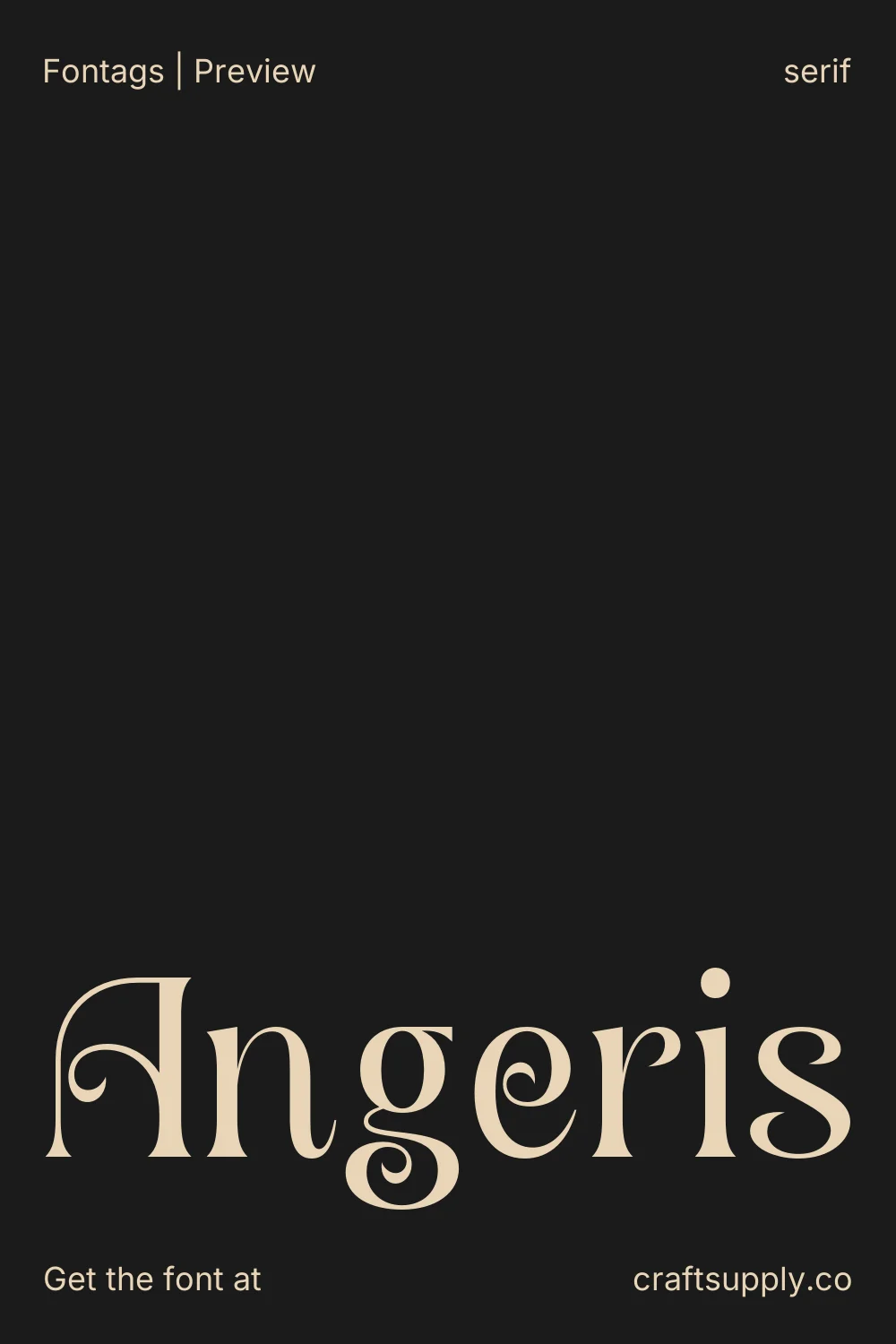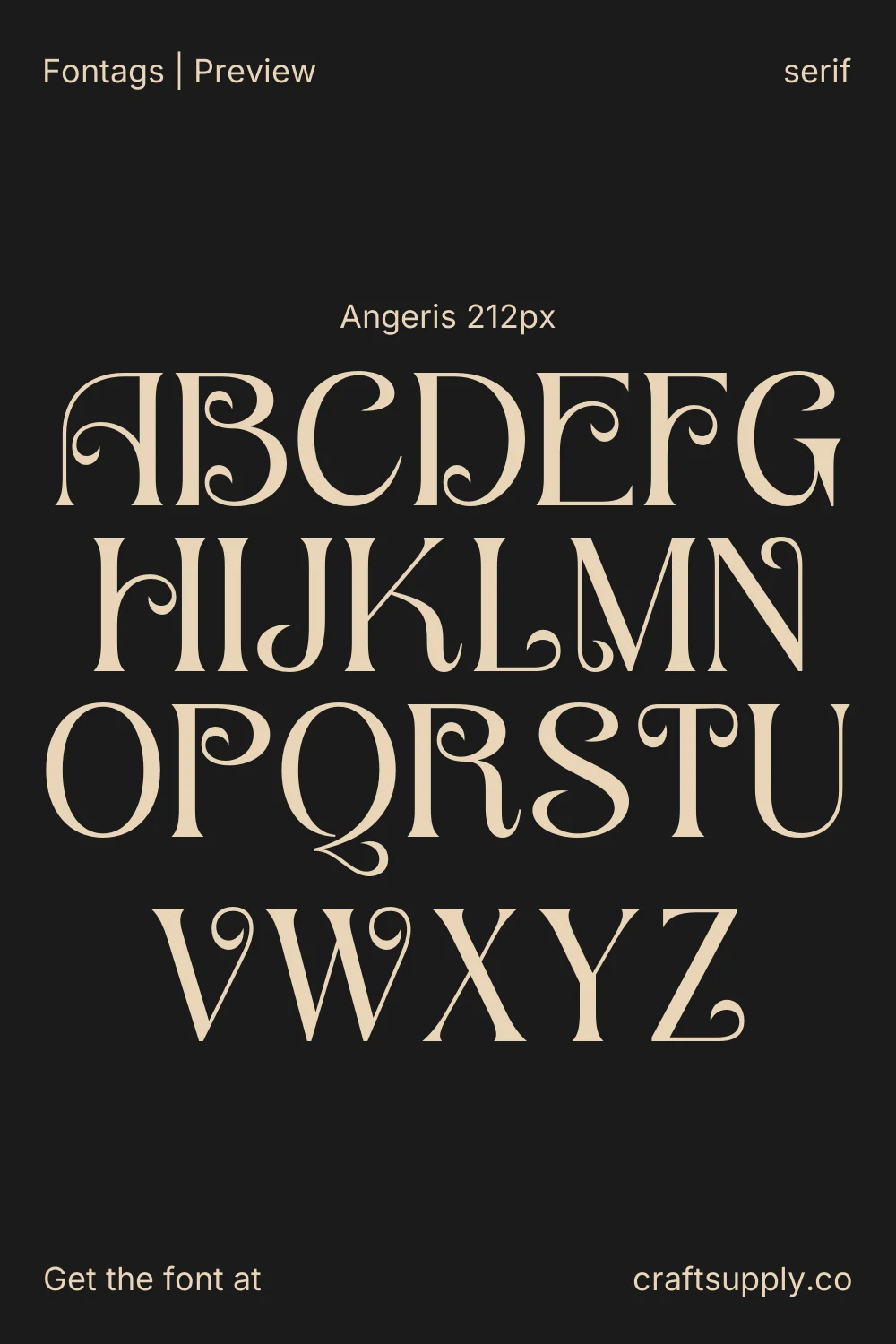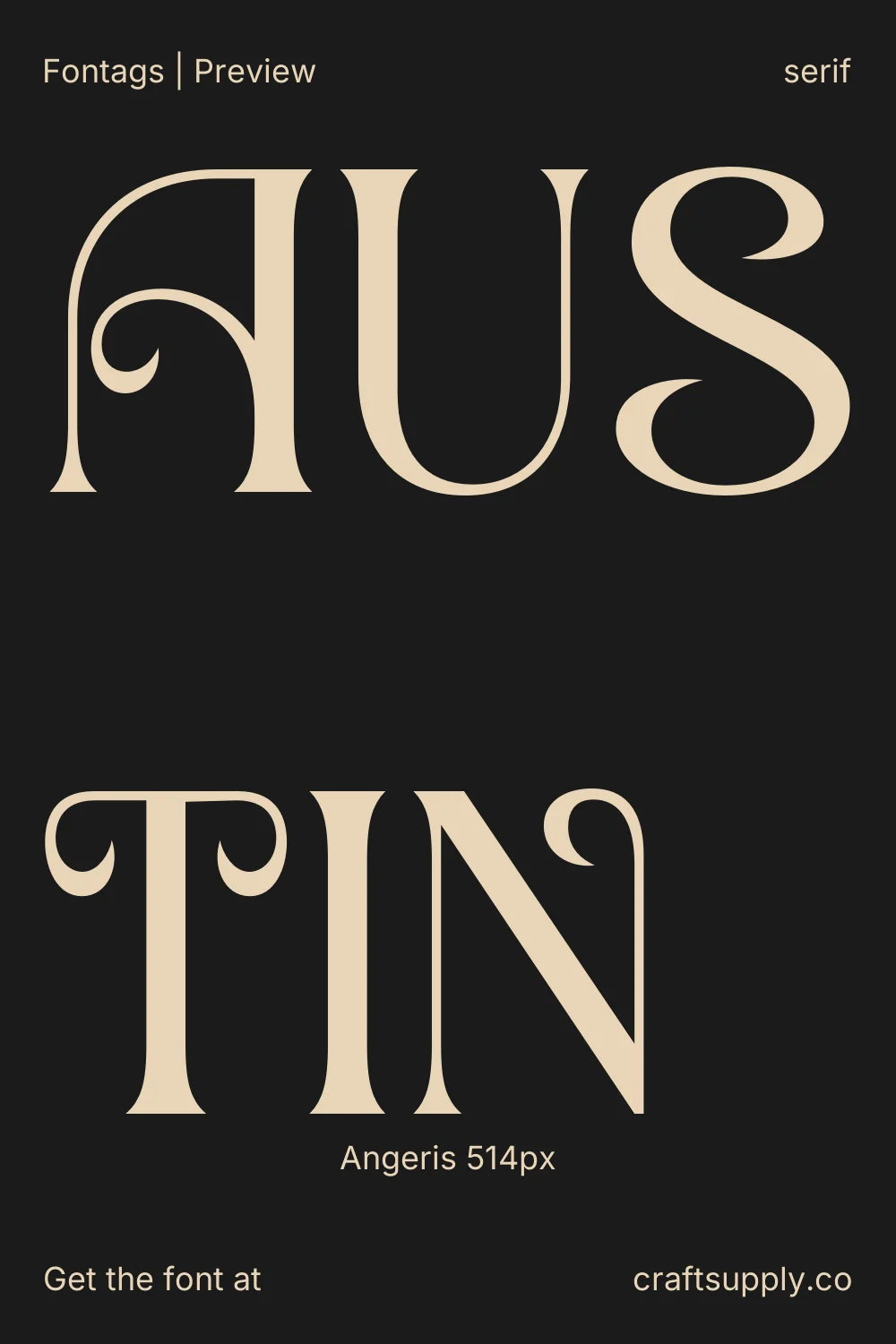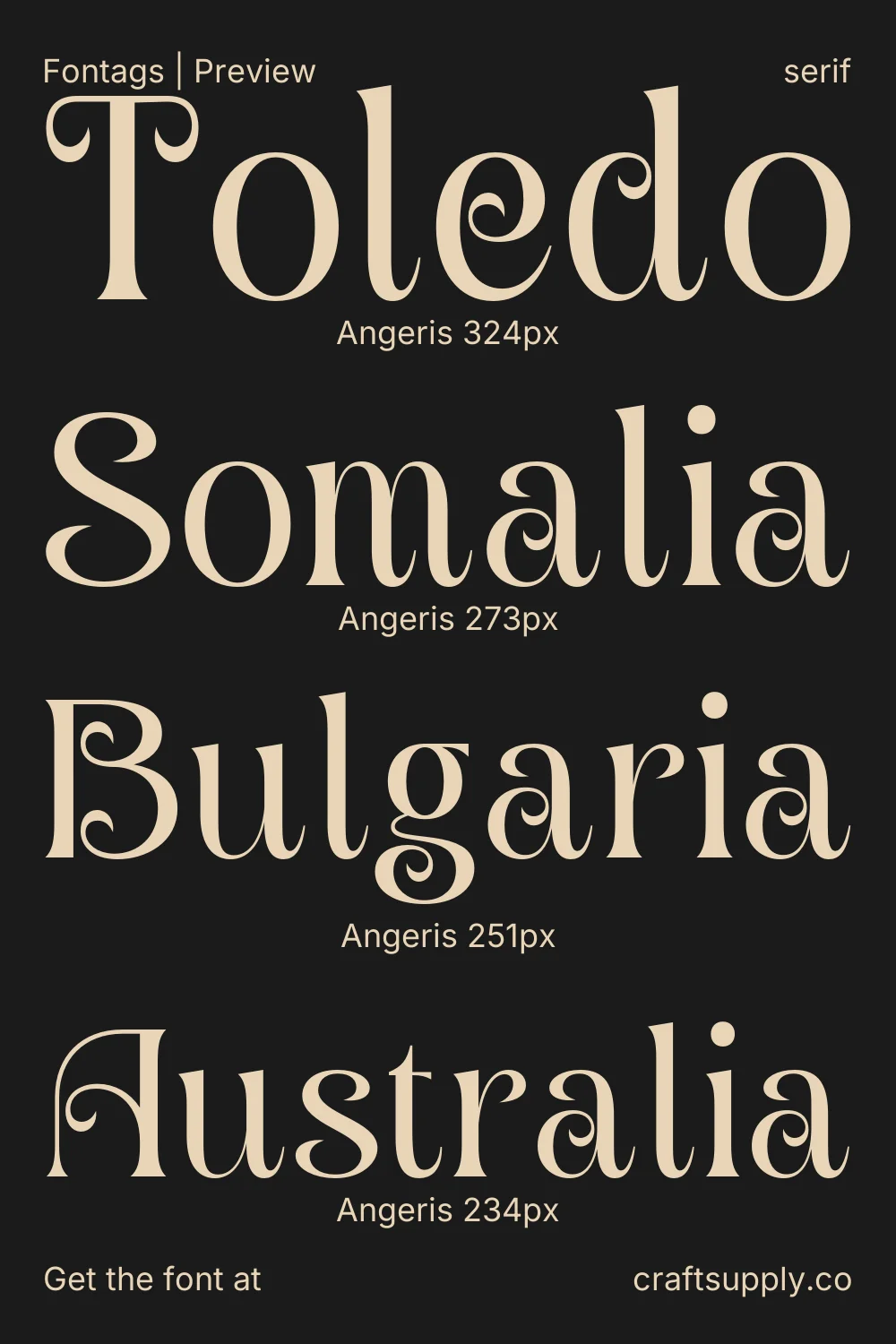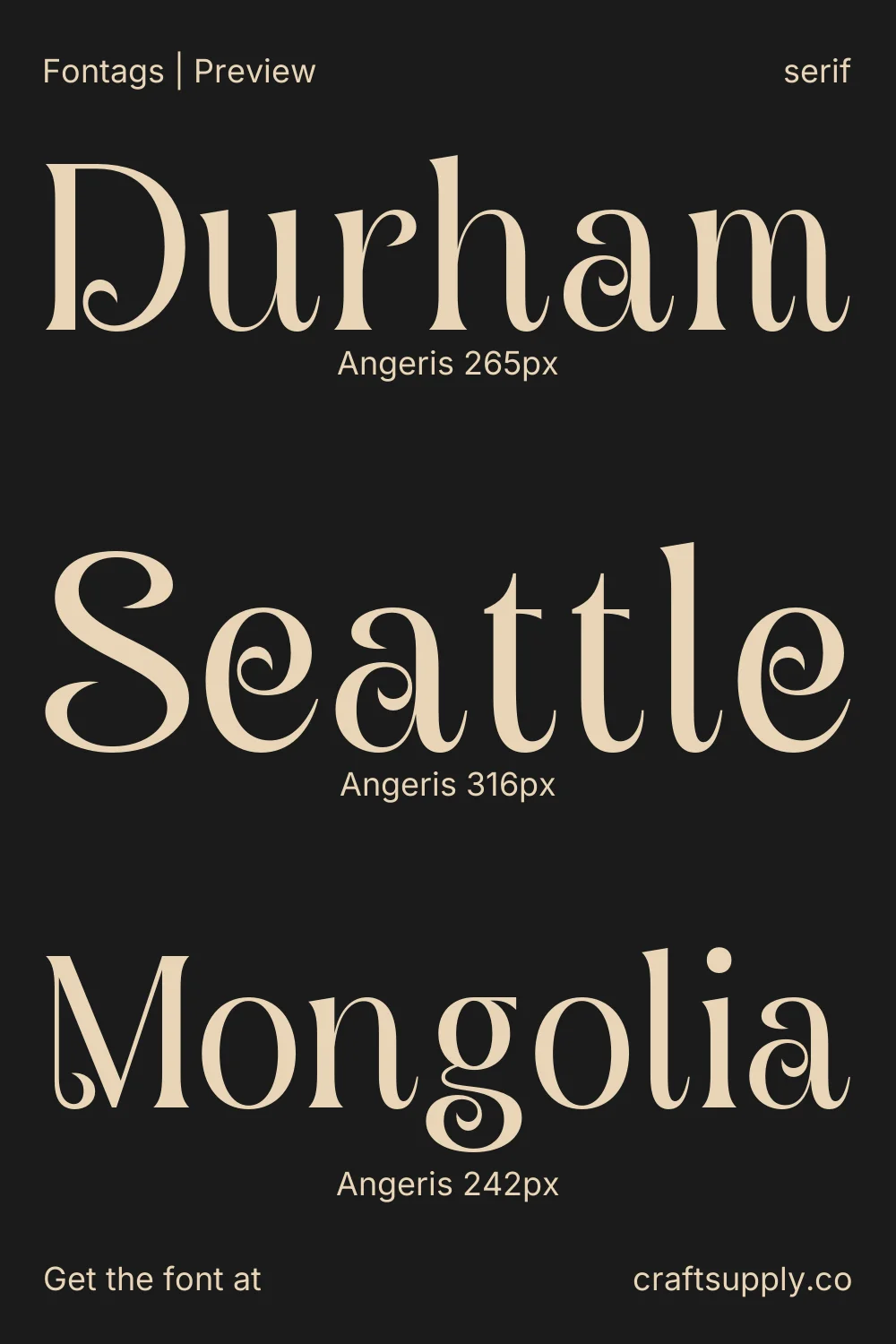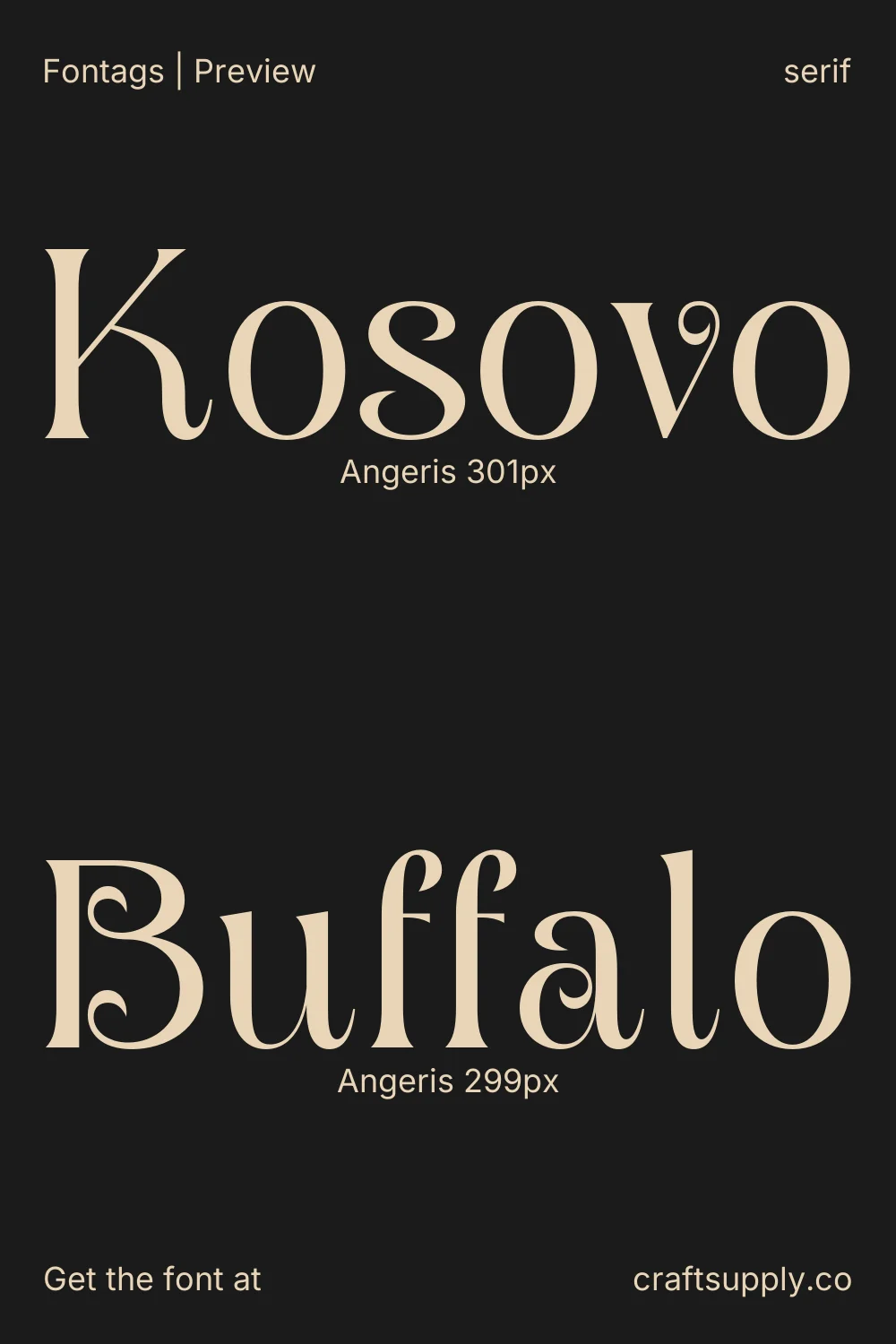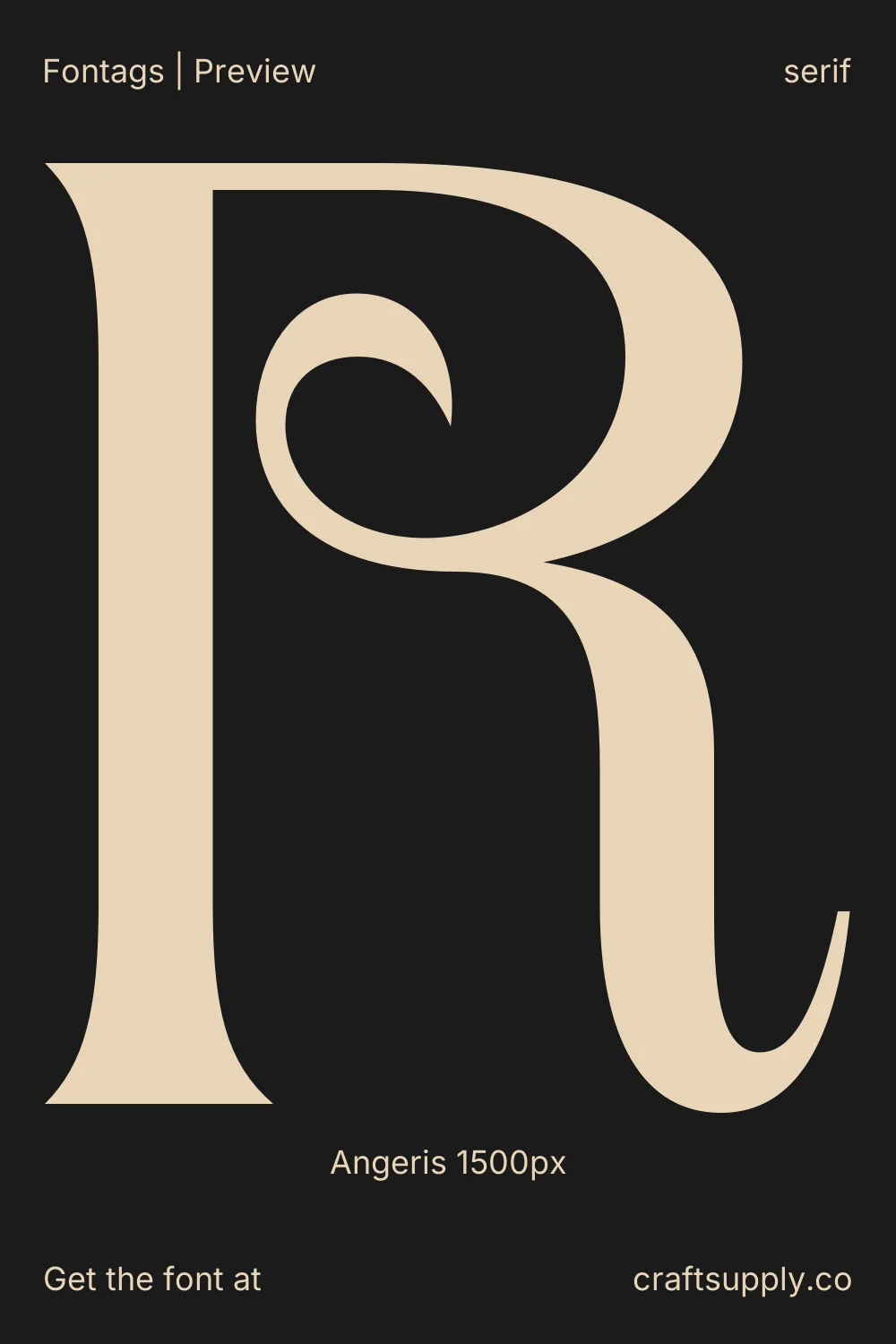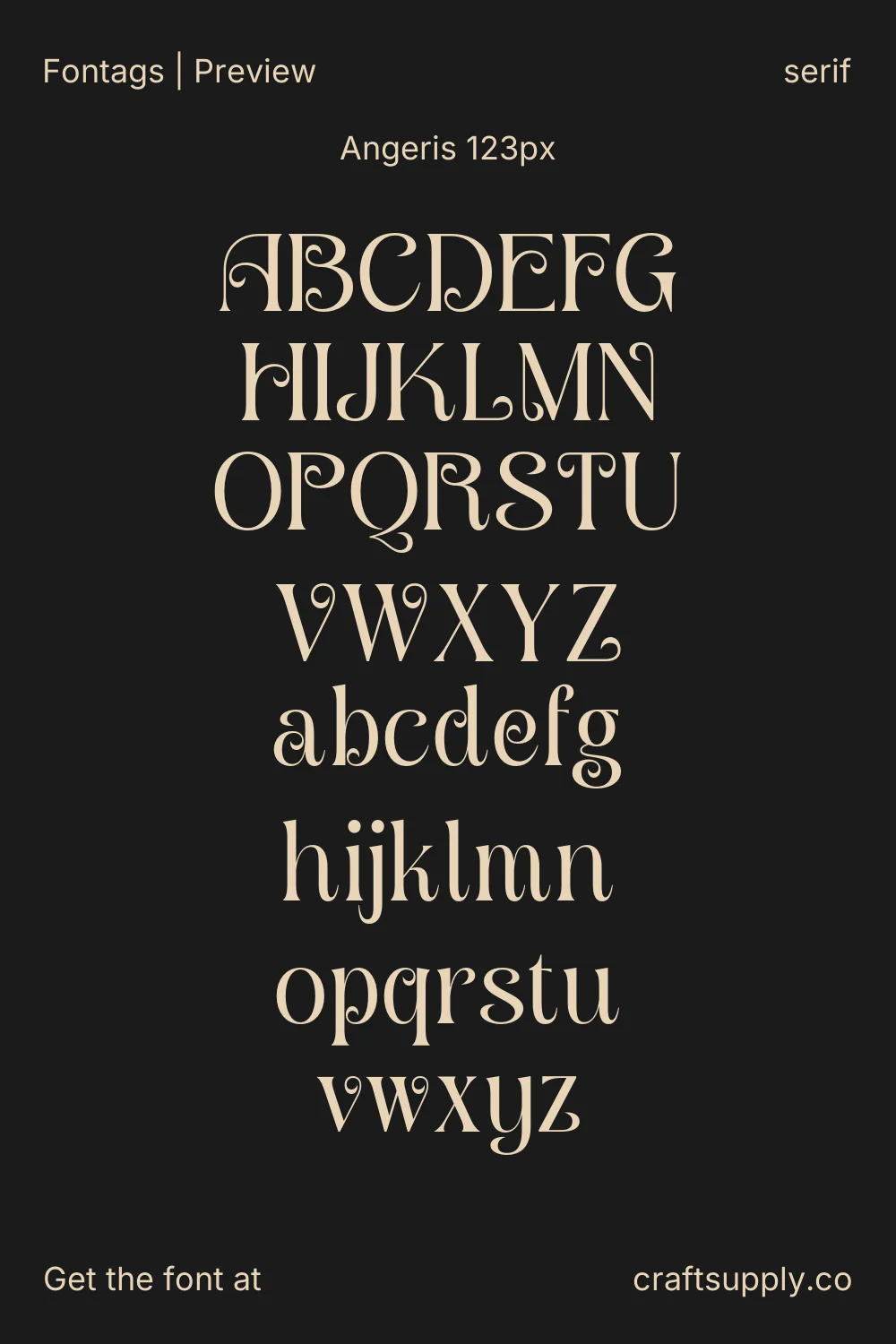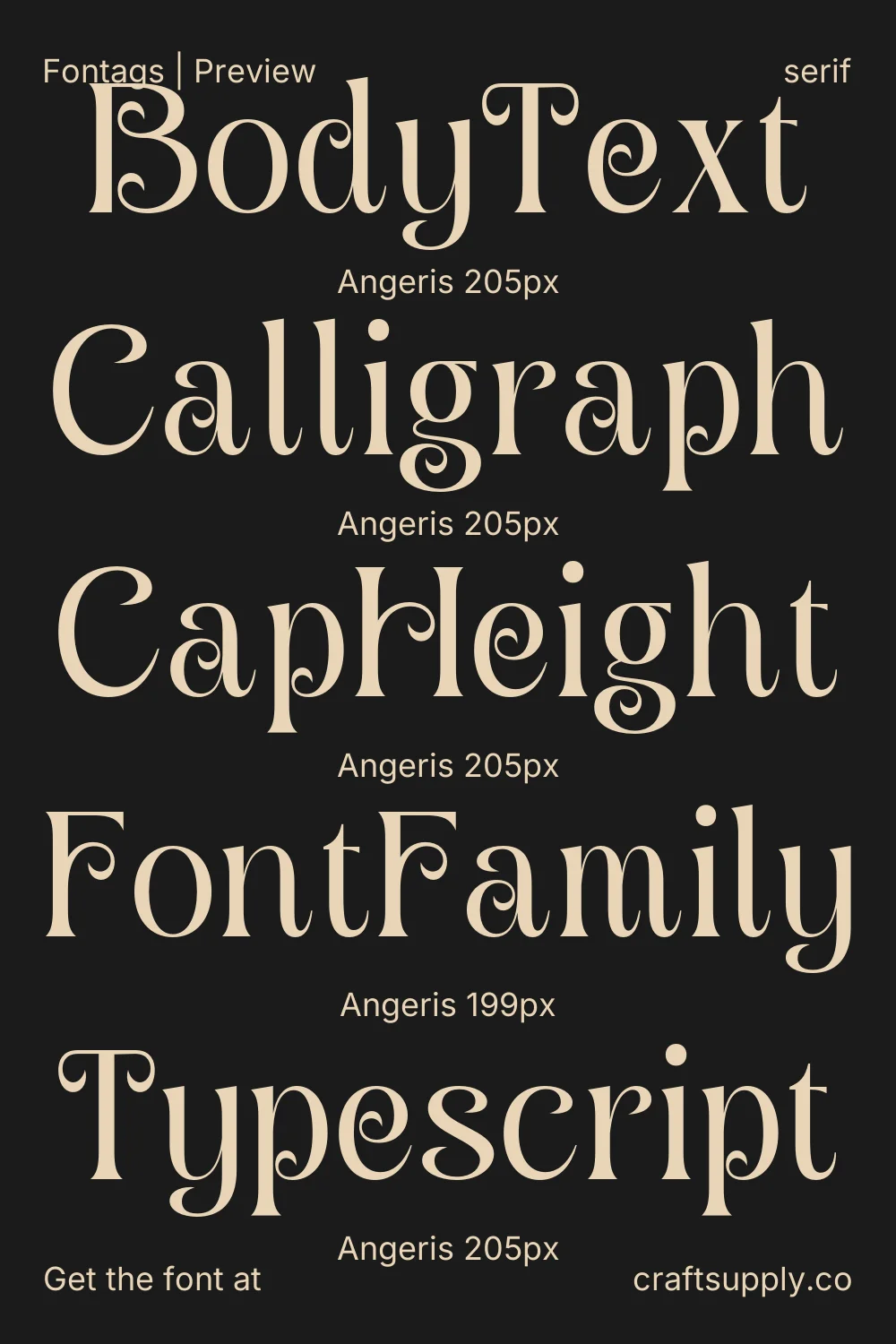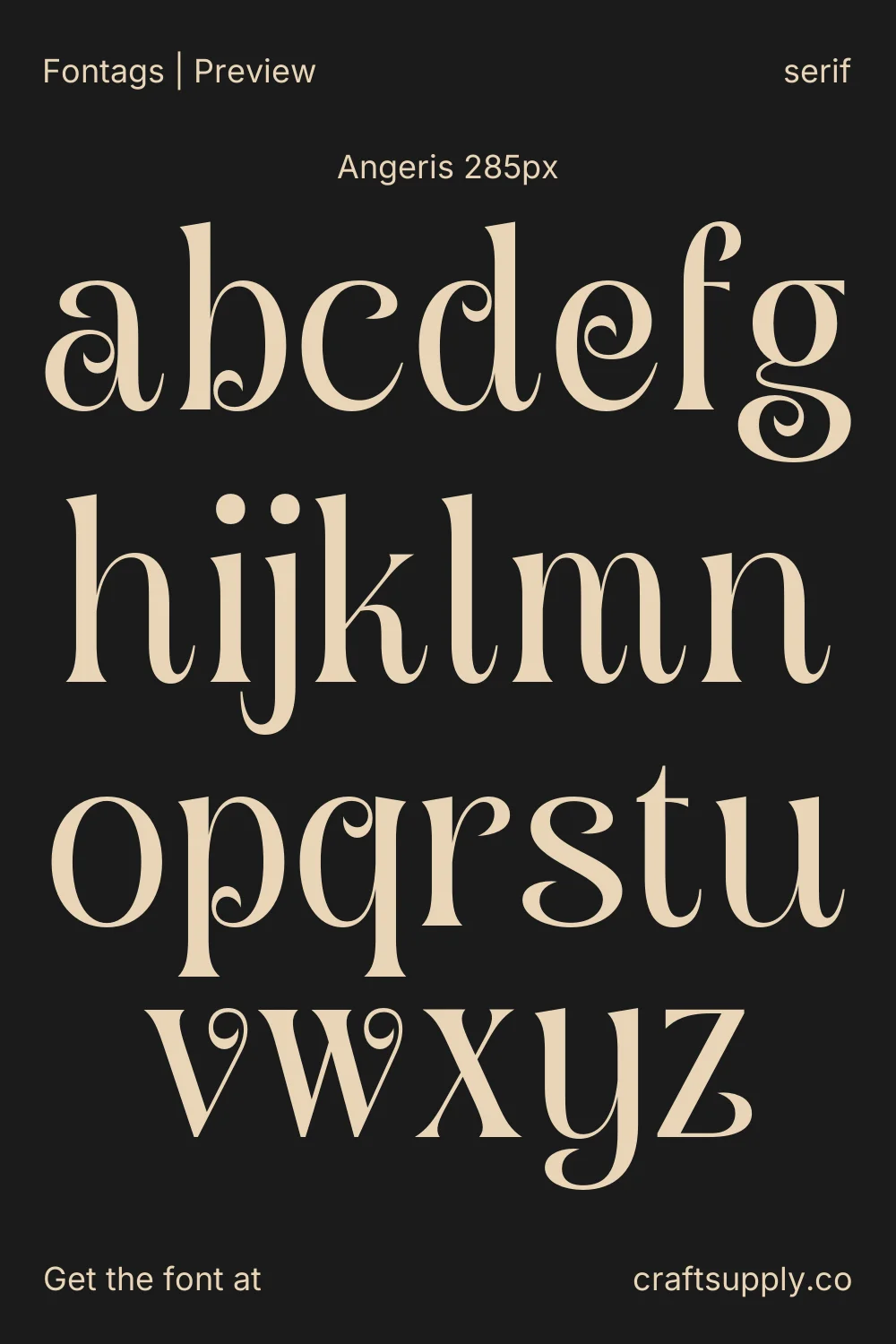
Angeris
Angeris is a serif font that channels retro elegance inspired by the Art Nouveau movement. Its ornate details and flowing curves evoke a nostalgic yet timeless charm. Ideal for branding, editorial work, and packaging where a touch of vintage sophistication is desired.